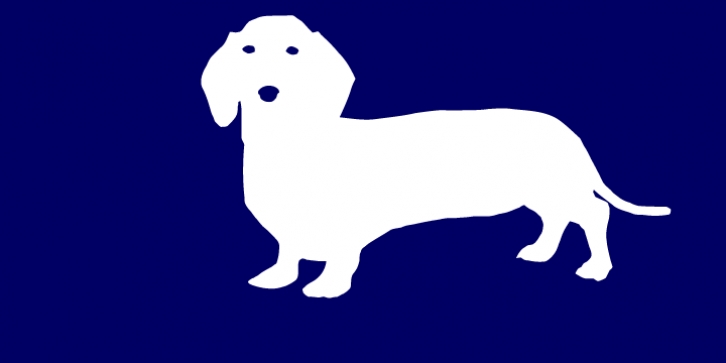
Charliedog was published by studiocharlie. Charliedog contains 1 style.
Charliedog is a font made of various dogs.
It's ideal for graphics works like posters, flyers and similar.